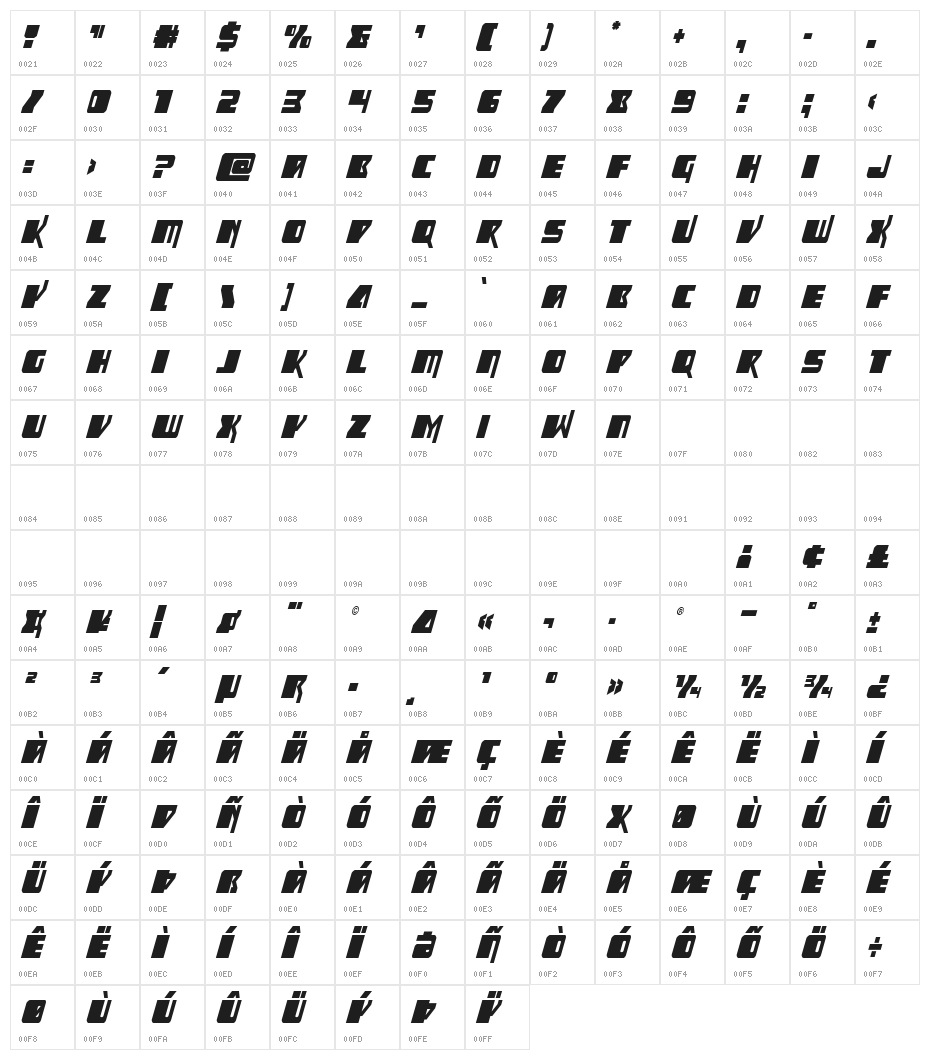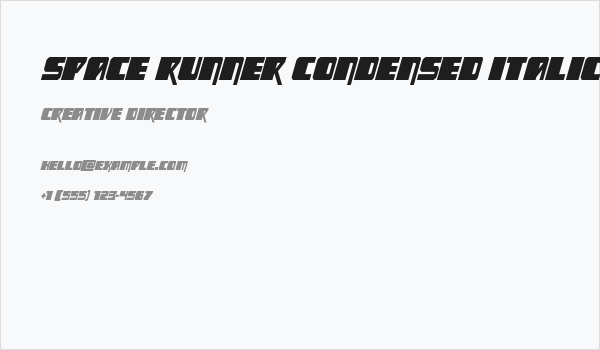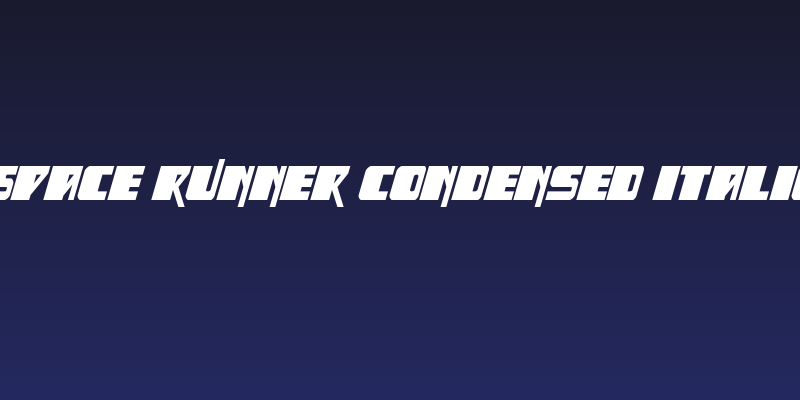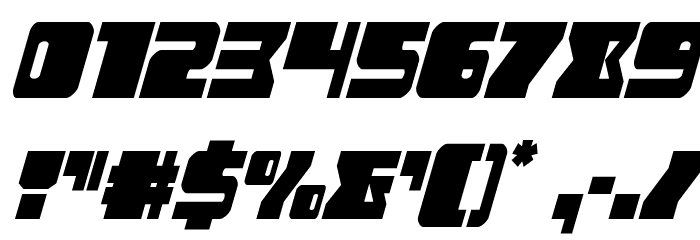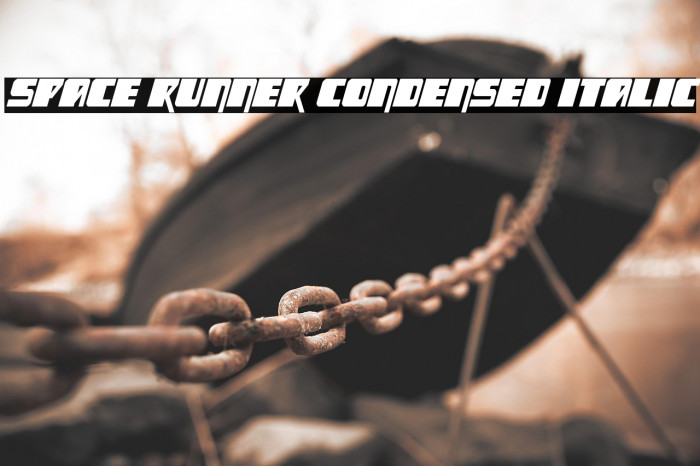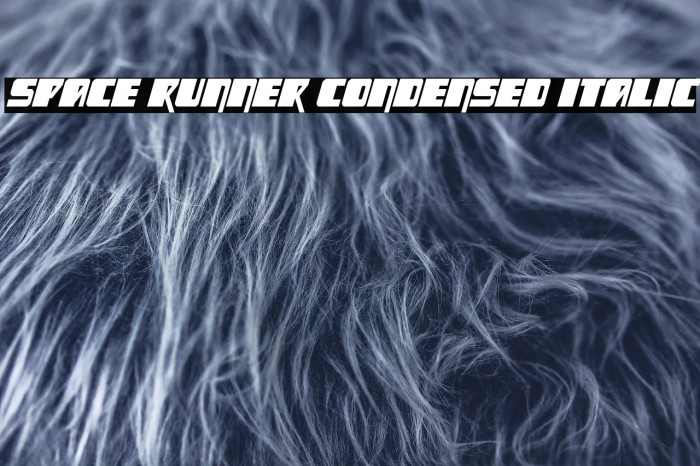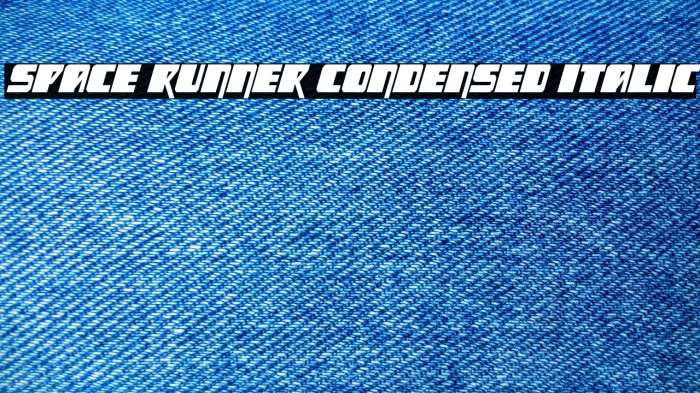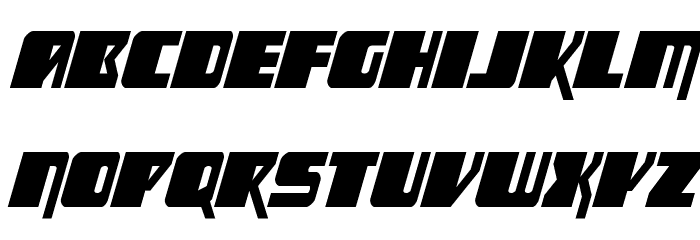
Space Runner Condensed Italic Font
This font features a futuristic and dynamic design, characterized by its bold and angular letterforms. The condensed style gives it a sleek and compact appearance, while the italic slant adds a sense of motion and speed. Each character is crafted with sharp edges and a geometric structure, making it ideal for projects that require a modern and edgy look. The font maintains a consistent weight throughout, ensuring readability despite its unique style. The numbers and special characters are designed to match the bold and angular aesthetic, providing a cohesive look across all text elements.
| Proposed Projects | Ideal for sci-fi themed projects, video game titles, technology branding, and dynamic posters. |